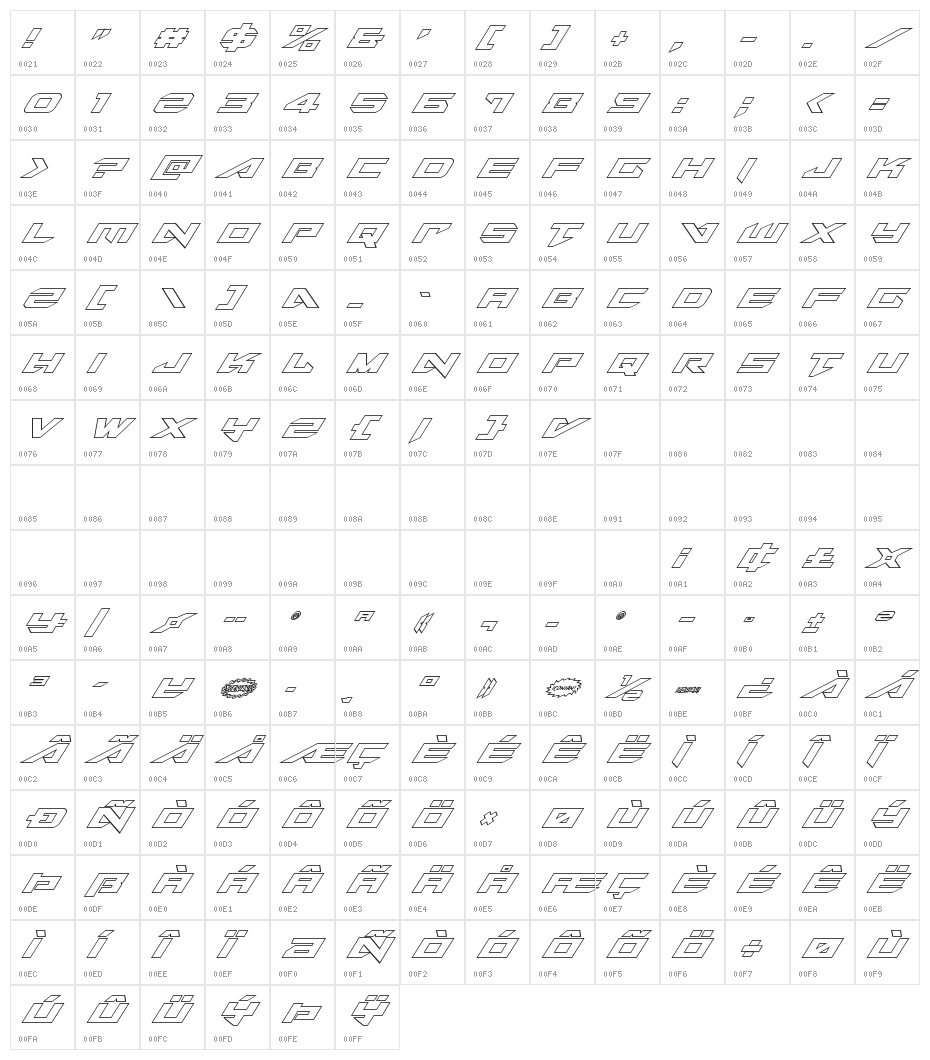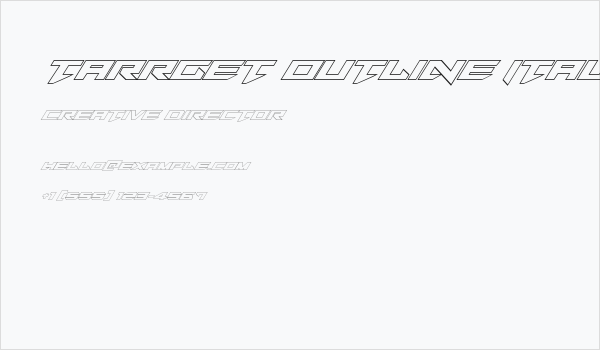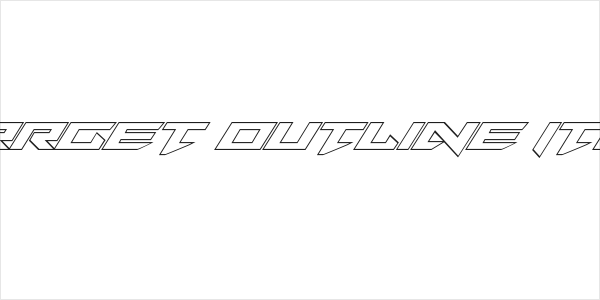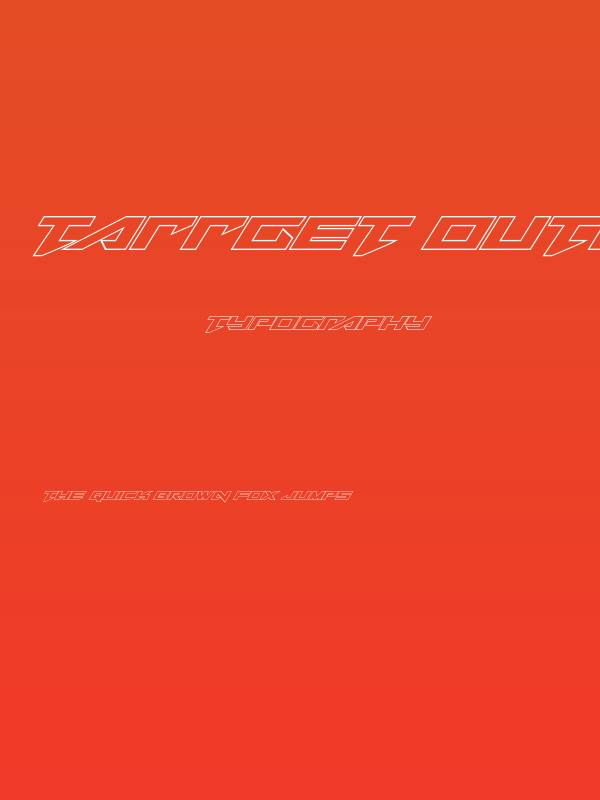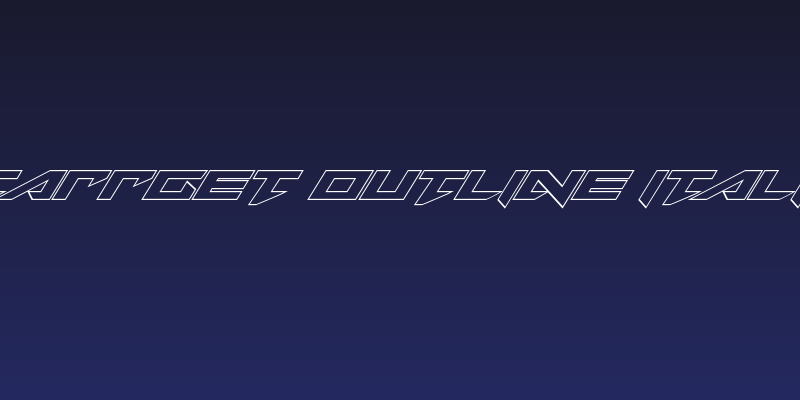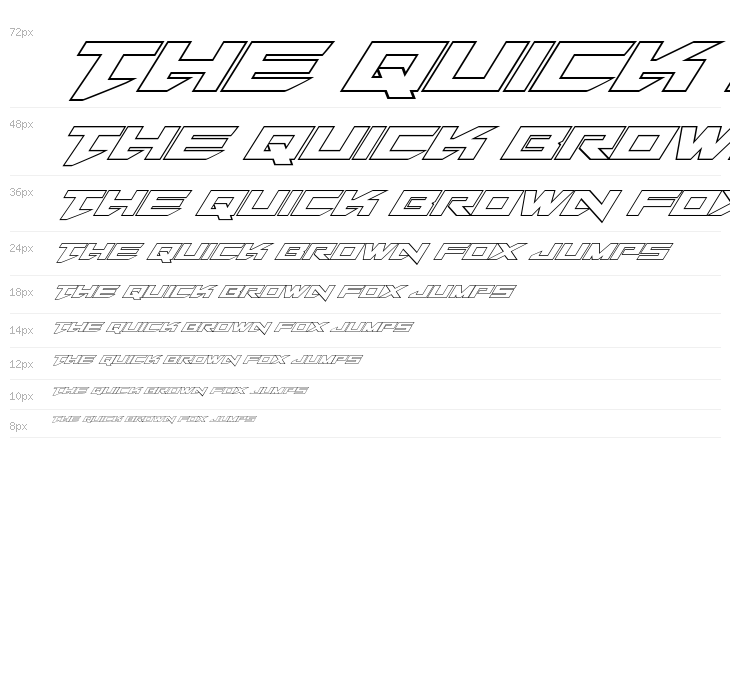
Tarrget Outline Italic Font
Tarrget Outline Italic Description
This font features a dynamic and futuristic design with an italicized, outlined style. The characters are angular and geometric, giving a sense of motion and speed. The uppercase letters are bold and commanding, while the numerals and special characters maintain the same energetic aesthetic. The outline effect adds depth and dimension, making it ideal for eye-catching designs. Its unique style is perfect for projects that require a modern and edgy look.
| Proposed Projects | Ideal for sports branding, tech-related designs, video game titles, and futuristic posters. |